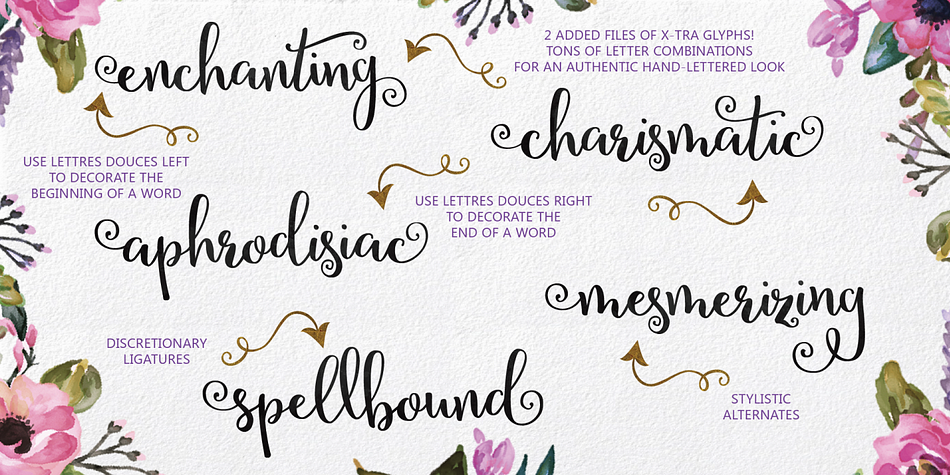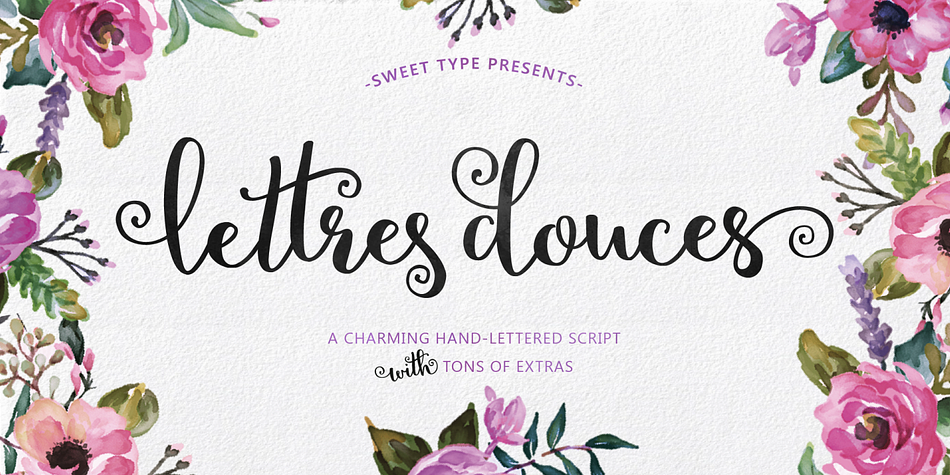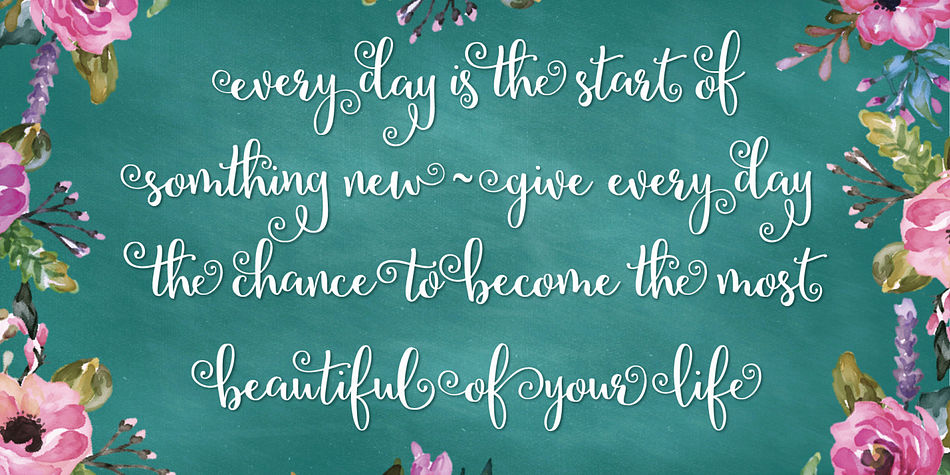
Lettres Douces is a script and modern calligraphy font family. This typeface has five styles and was published by Emily Spadoni.
Introducing lettres douces! A soft and sweet hand-lettered typeface. Hand drawn characters dance along the baseline. You’ll have so much fun creating your own hand-lettered text syles. The combinations of sweet swirly letters are endless.
My biggest bonus yet!
4 added files of additional decorative glyphs, many additional common letter combinations, and even the multi-lingual glyphs are all decorated. Use “Left” and “Right” to create your own decorated word styles. In total hundreds of swirly letter combinations, creating an authentic hand-made, hand-lettered style text.
It’s super easy to use. Just highlight the letter you want to change and choose Left or Right. Many of the alternates have swirls that dip below the baseline and will fit nicely in the middle of the words, too! ALT-files work the same way. Just highlight the letter and choose the alternate key from the file of choice.
Don’t have and alternate glyphs panel? No problem. I’ve added 2 alternate files of all the additional ligatures and common letter combinations to easily access all the x-tras on the keyboard. I even included a map!